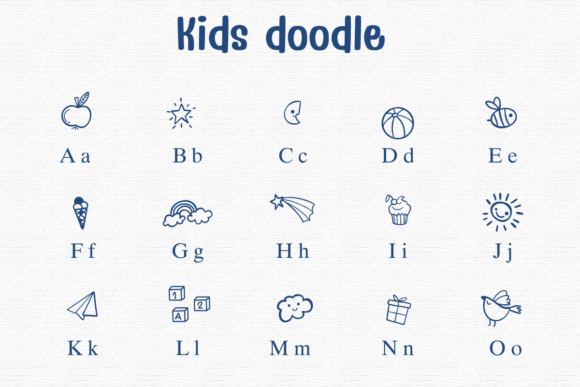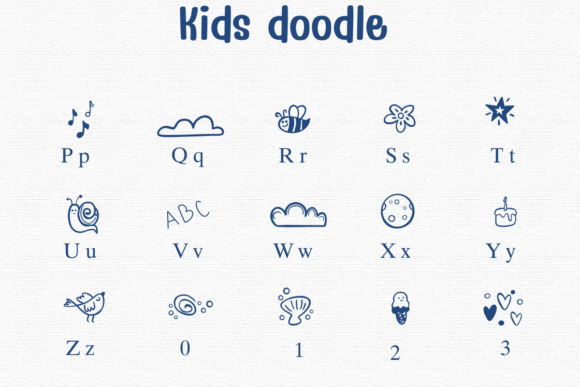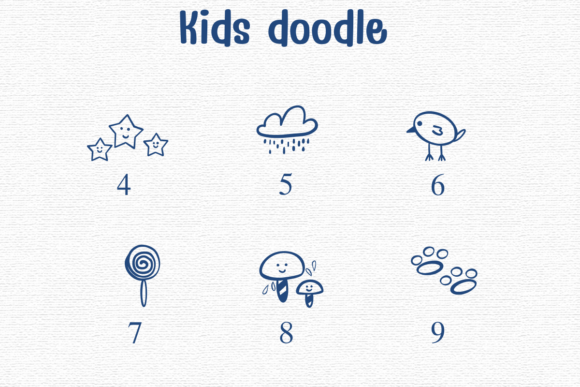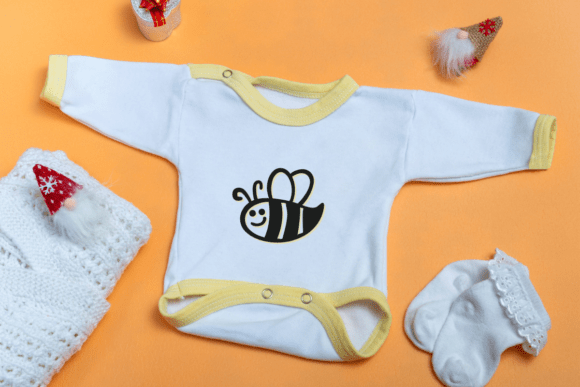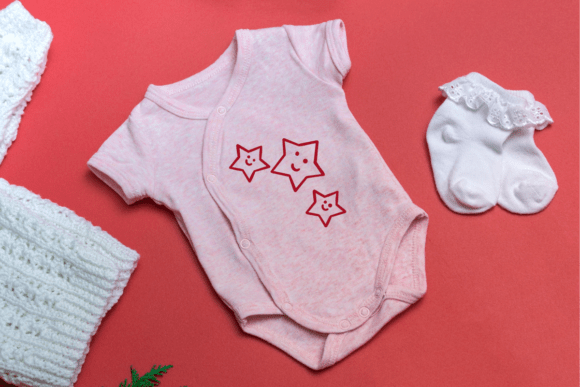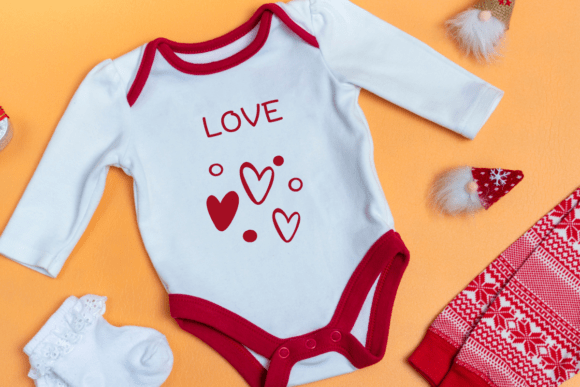
Introduction to Kids Doodle Font
Remember the excitement of creating with crayons and markers as a child? The freedom to let your imagination run wild, bringing joy to every drawing? That same carefree spirit is captured in the Kids Doodle Font, a delightful dingbats font filled with whimsical illustrations that bring instant joy to any design.
As a designer, you’re always on the lookout for the perfect design resource to elevate your creative project. Whether you’re crafting a children’s book, planning a birthday party, or creating classroom materials, the Kids Doodle Font is a valuable addition to your toolkit. Its high-quality, transparent background design makes it easy to use in a variety of contexts, from digital to print.
With the Kids Doodle Font, you can add a playful touch to your designs with ease. From stars and rainbows to cupcakes and ABCs, this charming font is sure to bring a smile to your face. And the best part? It’s available for a free download, making it a must-have for any designer looking to add a little magic to their next project.
Key Features of Kids Doodle Font
- High-quality, hand-drawn design perfect for creative projects, such as children’s books, educational materials, and more.
- Unique, playful design that adds a touch of whimsy and creativity to any project, making it an excellent choice for designers looking for a distinctive font.
Honest Review: Kids Doodle Font
As a designer, I’m always on the lookout for unique and high-quality design resources to elevate my creative projects. Recently, I stumbled upon the Kids Doodle Font, and I’m excited to share my honest review with you.
- ✨ The font is extremely versatile and can be used for a wide range of creative projects, from kids’ party invitations to educational materials.
- ✨ The transparent background option is a great feature that makes it easy to integrate the font into any design.
- ⚠️ The font may not be suitable for professional or corporate designs, as it’s quite playful and whimsical.
Overall, I’m impressed with the Kids Doodle Font’s high quality and versatility. While it may not be suitable for every design project, it’s a great addition to any designer’s toolkit. I highly recommend it for personal or creative projects, and I’m excited to see how it can help take my designs to the next level.
To get the most out of the Kids Doodle Font, use it in combination with other design elements like icons and graphics. You can also experiment with different font sizes and colors to create a unique look.
The Kids Doodle Font is suitable for various creative projects, including:
- Children’s party invitations and decorations
- Education and learning materials
- Family and personal projects